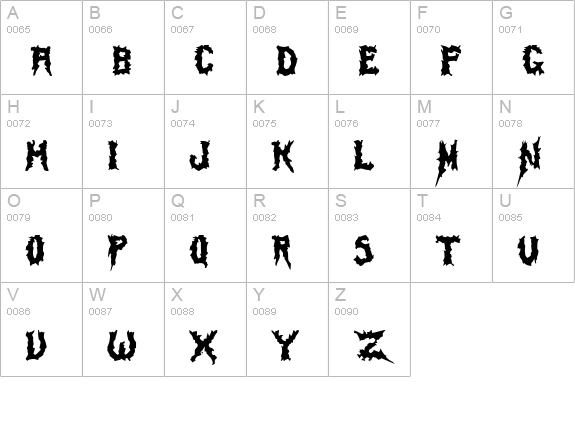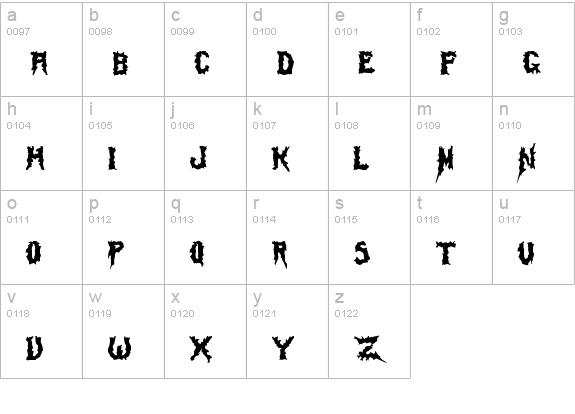
Swamp Thing Font Details
The Swamp Thing font is a captivating and mysterious typeface inspired by the eerie beauty of the swamp. Its intricate design features twisted vines and creeping tendrils that evoke a sense of dark enchantment. Perfect for adding a touch of otherworldly charm to your projects, this font is sure to captivate and intrigue viewers. Best of all, the Swamp Thing font is available for free download at FontsMarket.com. Embrace the magic and mystique of the swamp with this unique and enchanting font that will bring a touch of the supernatural to your designs.